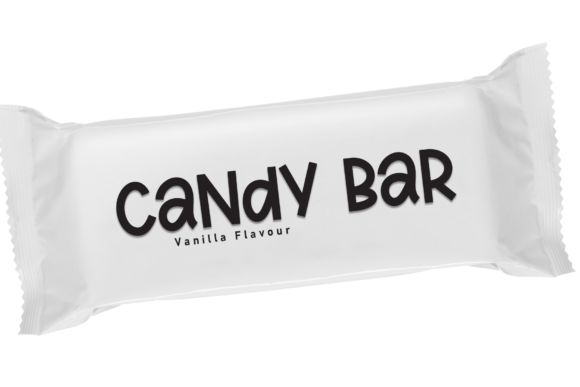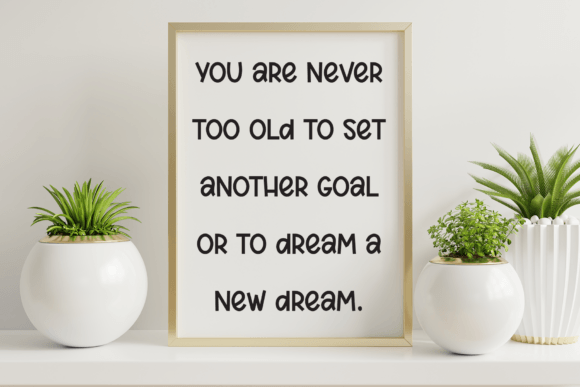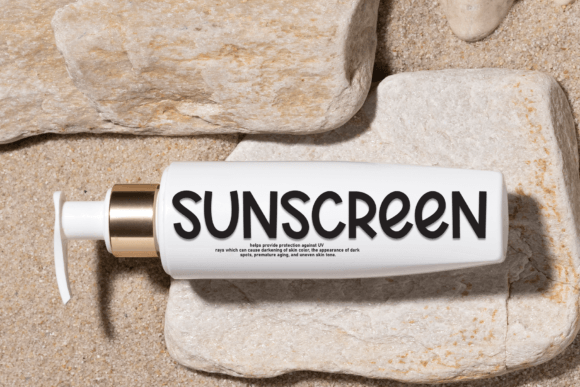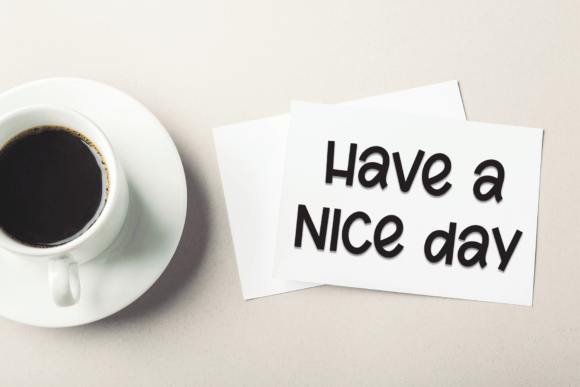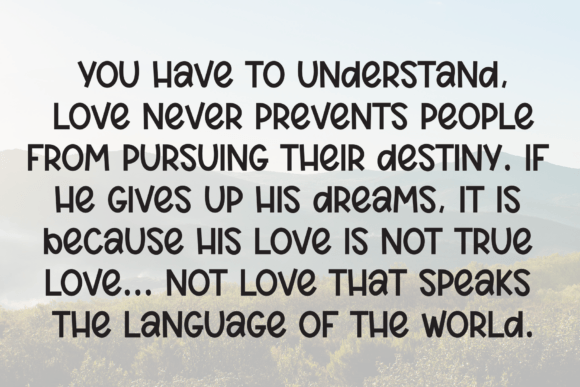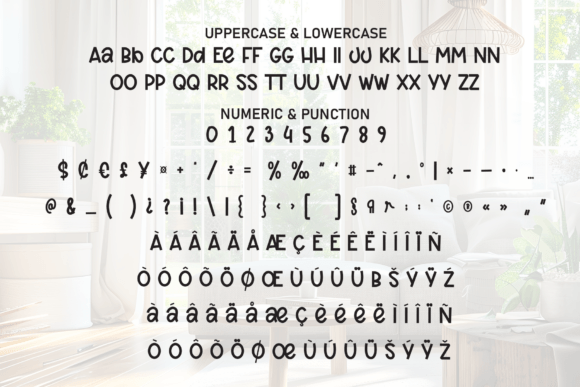
Introduction to Home Charming Font
Have you ever stumbled upon a font that makes you smile? For designers, finding that perfect font can be a game-changer, elevating a project from ordinary to extraordinary. It’s a moment that sparks creativity and sets the tone for a delightful outcome. That’s exactly what happened when we discovered the Home Charming Font – a free download that has become a treasured design resource.
With its warm, handwritten feel and playful attributes, the Home Charming Font is a must-have for any creative project that needs a sprinkle of whimsy. Whether you’re designing a wedding invitation, a greeting card, or a digital art piece, this font is sure to bring a dash of joy and fun to your work. Its high-quality design and transparent background make it a versatile and easy-to-use resource for designers.
Key Features of Home Charming Font
- Unique, elegant design perfect for creative projects and home decor themes.
- Designed to evoke a sense of warmth and coziness, perfect for home decor, wedding invitations, and other creative projects.
Honest Review: Home Charming Font
I recently had the chance to try out the Home Charming Font, and I must say it’s been a pleasant experience. This font is perfect for any creative project that requires a touch of warmth and coziness. Its high quality design makes it a great addition to any design resource.
What works well with the Home Charming Font is its versatility. You can use it for various purposes such as designing invitations, creating menus, or even for social media graphics. The font also comes with a transparent background, making it easy to integrate with any design.
- ✨ Versatile and can be used for various purposes
Tips for Getting the Most Out of Home Charming Font
Use Home Charming Font in combination with other design elements to create a cohesive and visually appealing design. Experiment with different font sizes, colors, and styles to find the perfect balance for your project.
Home Charming Font is perfect for a variety of creative projects, including social media graphics, presentations, blog posts, and more. Its high-quality design and transparent background make it easy to integrate into any design.